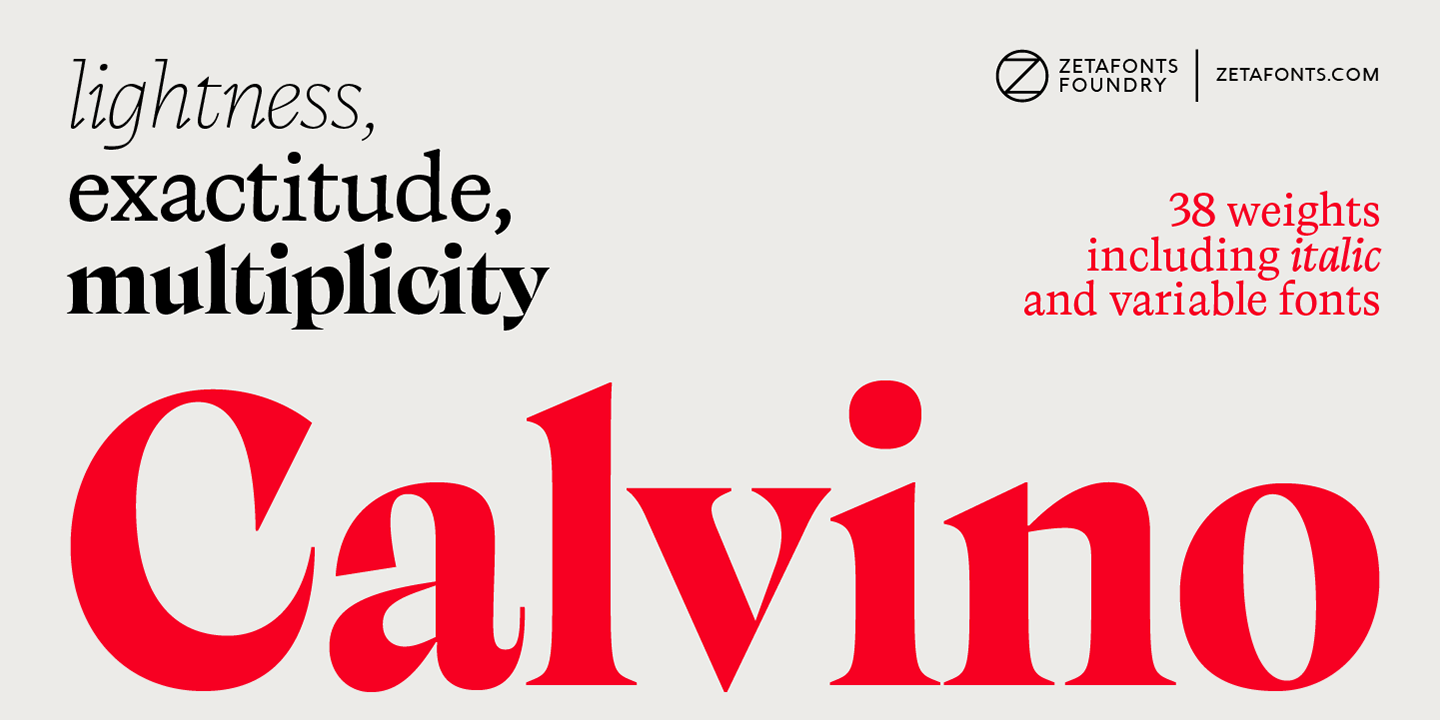
Calvino Font is perfect for literary publications, philosophical texts, intellectual discourse materials, sophisticated book design, academic journals, cultural magazine layouts, thoughtful editorial projects, contemplative branding campaigns, scholarly documentation, and refined intellectual applications. This distinguished typeface creates authentic literary atmosphere in both scholarly print and digital intellectual platforms.
What makes Calvino Font exciting is its masterful embodiment of literary sophistication with intellectual elegance and contemplative depth that reflects philosophical thinking. The font features thoughtful letterforms with scholarly proportions and intellectual character details that evoke library studies, contemplative reading, and profound literary discourse. Its refined design establishes an atmosphere of intellectual authority and literary excellence that resonates with educated audiences seeking authentic scholarly communication and thoughtful expression.
Calvino Font family includes intellectual variations: Light, Regular, Medium, Bold, and Scholarly versions, each with literary alternates and philosophical character sets. Each variant maintains the font's contemplative personality while providing designers with sophisticated options for creating intellectual typography systems and scholarly communication materials.
This exceptional literary typeface brings authentic intellectual credibility to projects requiring scholarly presentation. Whether you're designing academic publications, literary branding, or philosophical content materials, Calvino Font Free Download delivers outstanding sophistication and intellectual authority. The font's scholarly proportions and literary details ensure memorable intellectual connection across various academic applications.
Publishers and intellectual institutions recognize how Calvino Font perfectly captures the essence of literary excellence and philosophical depth. Its scholarly foundation combined with intellectual sophistication makes it essential for literary and academic design projects. Download today and intellectualize your designs with this exceptionally thoughtful literary typography.